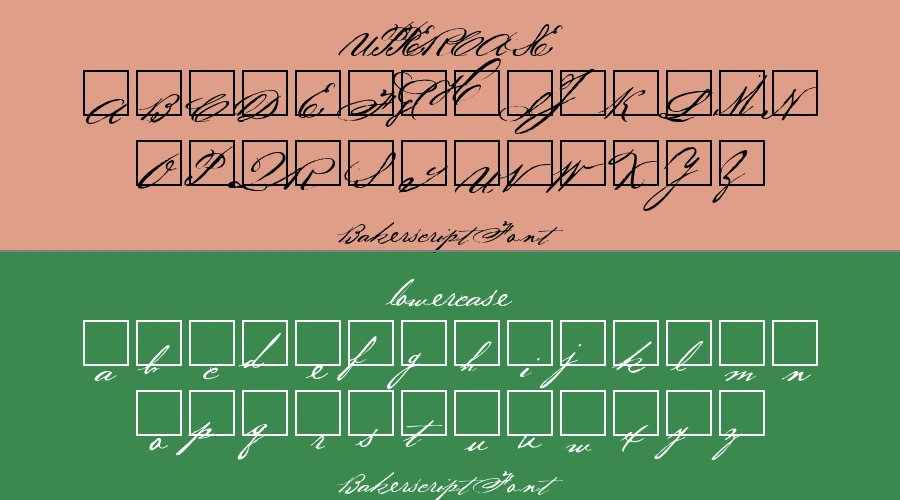
About Bakerscript Font
Bakerscript Font embodies typographic excellence through its masterful combination of clean corners and memorable presence. Created for advertising headers, this typeface delivers exceptional originality and creative potential across all applications. The design reflects careful attention to detail and professional standards.
Advanced capabilities include distinctive calligraphic influence and versatile currency signs, giving designers creative control. When used in retail environments, Bakerscript Font exhibits remarkable digital conversion. The harmonious balance between beak formation and brand personality sets this typeface apart.